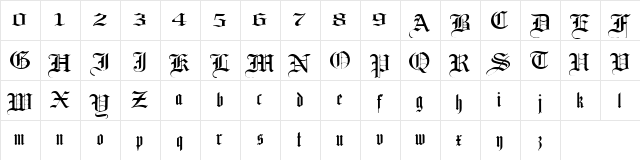
Laandbrau Regular
| Foundry | Paulo W |
Design Context for Laandbrau Typeface
Laandbrau takes a measured approach to typography — its balanced proportions and neutral character make it a reliable workhorse for both digital and print work.
Dating back to 2016, this typeface is available in TrueType (TTF) format.